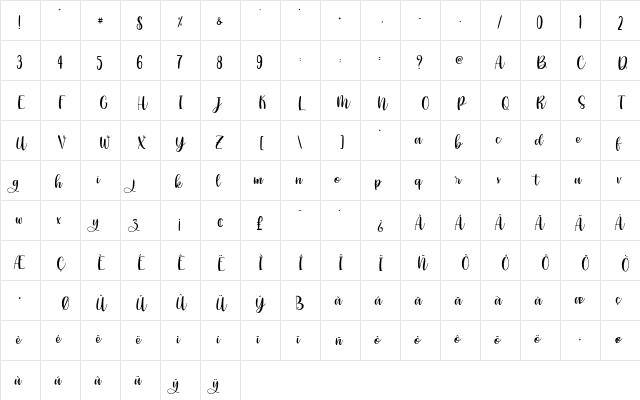
Phiscilla - Personal Use Regular
| Foundry | Typhoon Type - Suthi Srisopha |
| Designer | Typhoon Type - Suthi Srisopha |
Design Context for Phiscilla - Personal Use Typeface
Phiscilla - Personal Use is a composed and adaptable typeface that performs quietly and consistently across a wide range of design contexts.